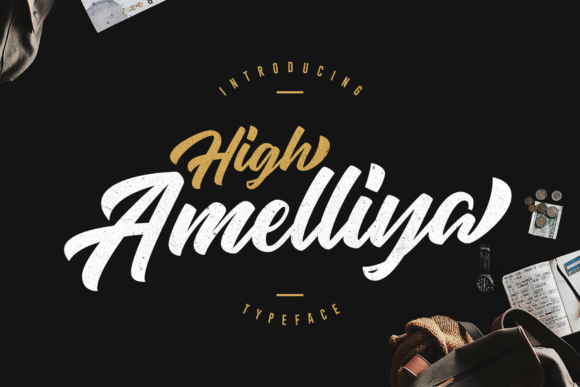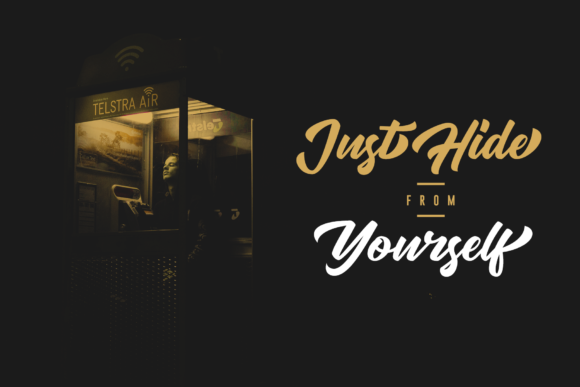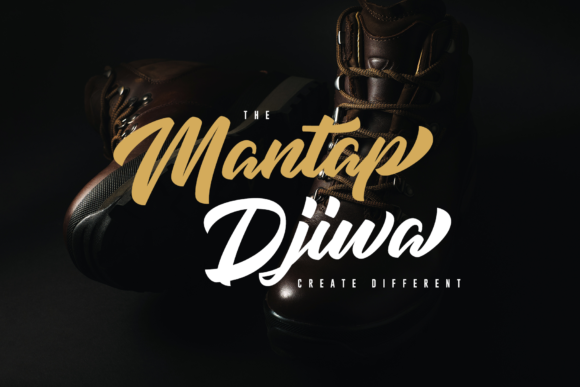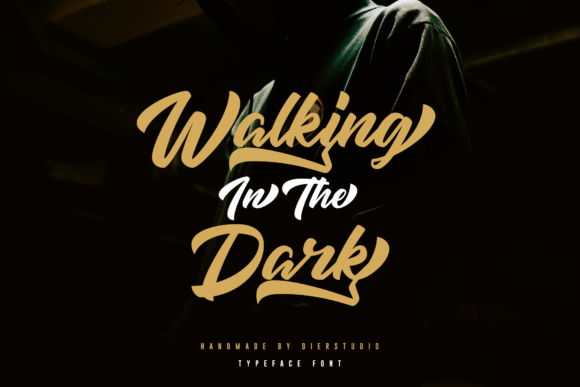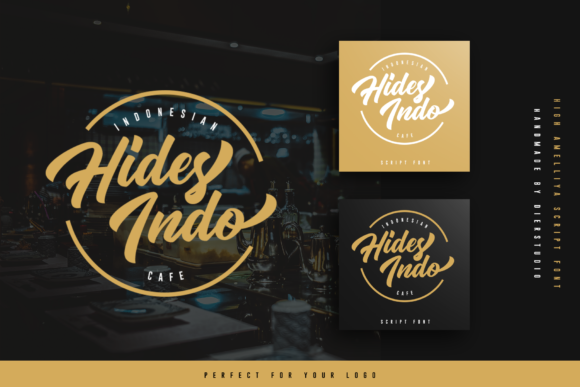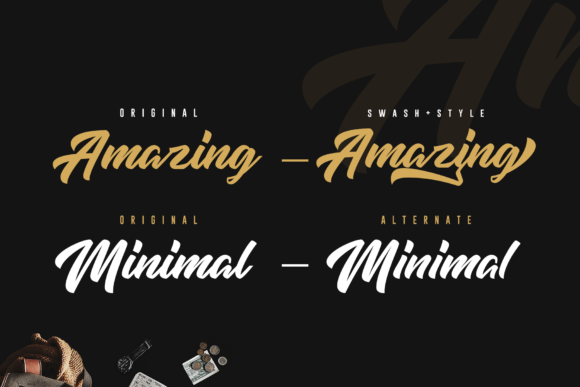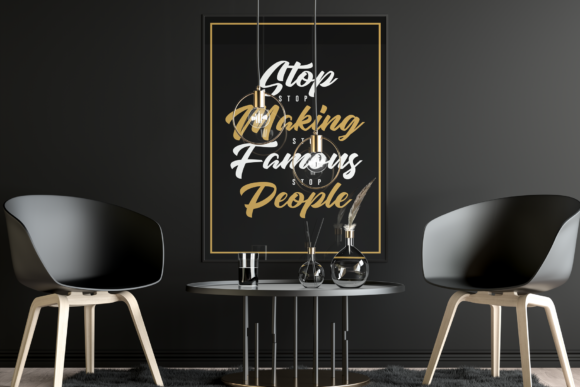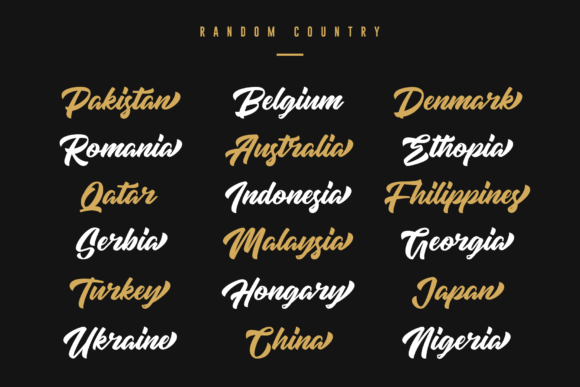
High Amelliya Font
About High Amelliya Font
The High Amelliya is a striking, yet elegant brush font. It has a bold and classy touch which can be used for branding projects, logos, social media posts, advertisements, product packaging, product designs, labels, poster, photography, t-shirt, watermarks, stationery and any projects.